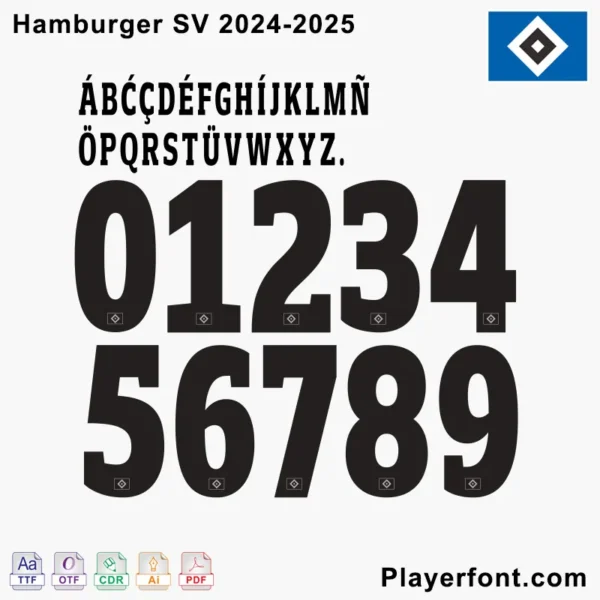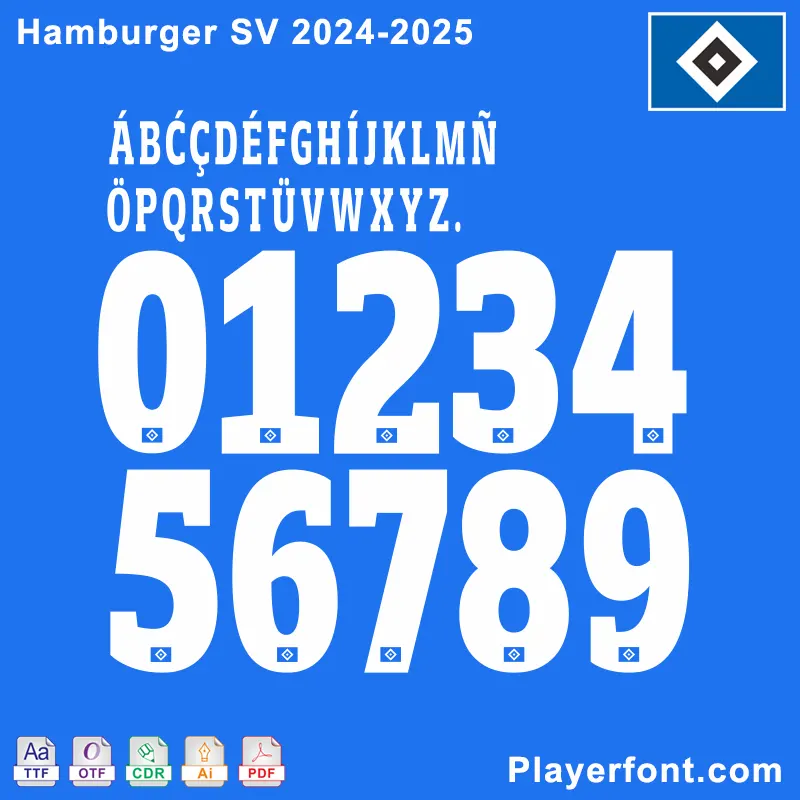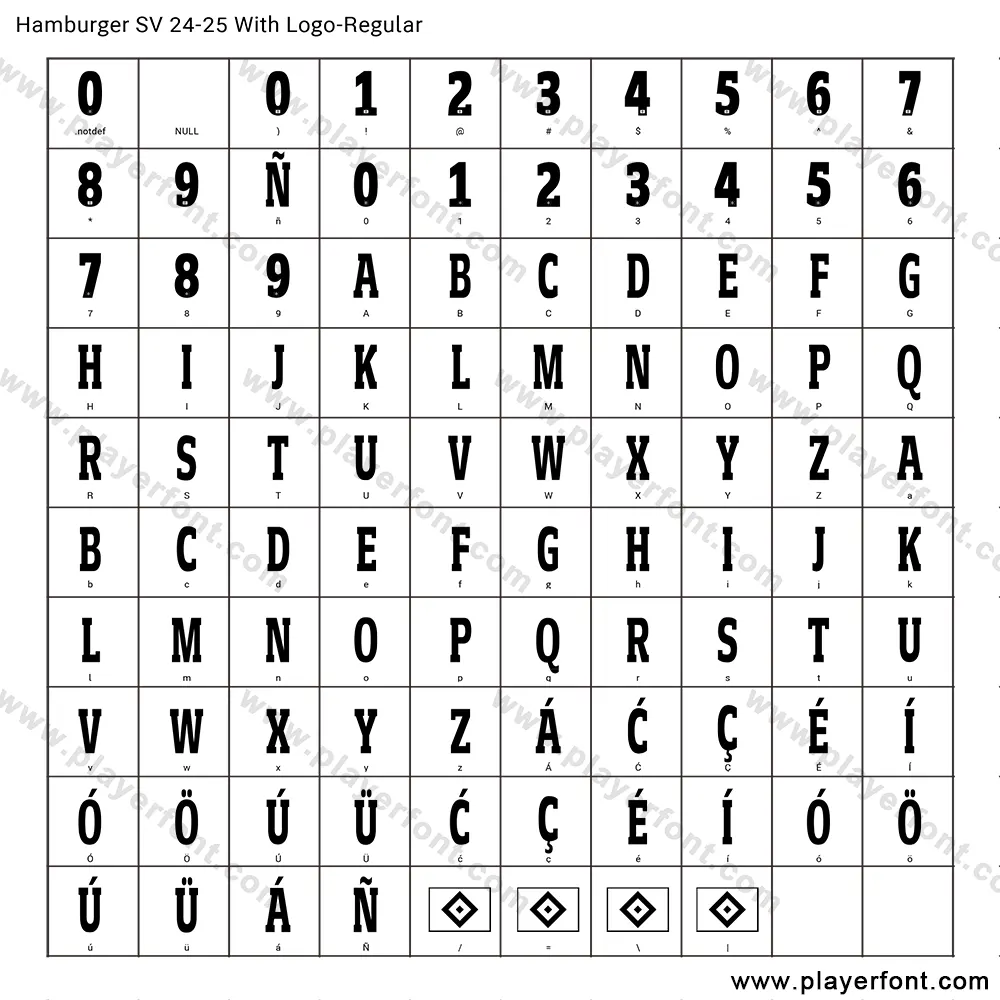
The font of Hamburger SV for the 2024-2025 season.
Introducing the official Hamburger SV font for the 2024-2025 season. This font is used on the club’s football jerseys and official merchandise, and now you can download it for your own projects.
Full alphabet, numbers, and symbols in Hamburger SV.